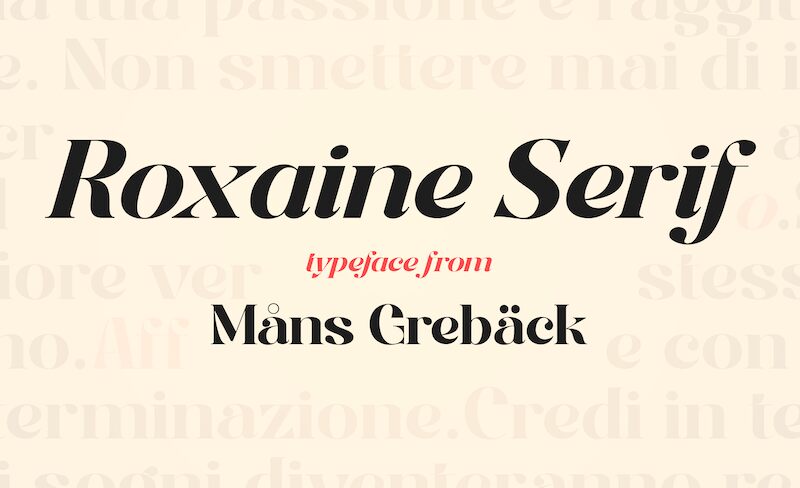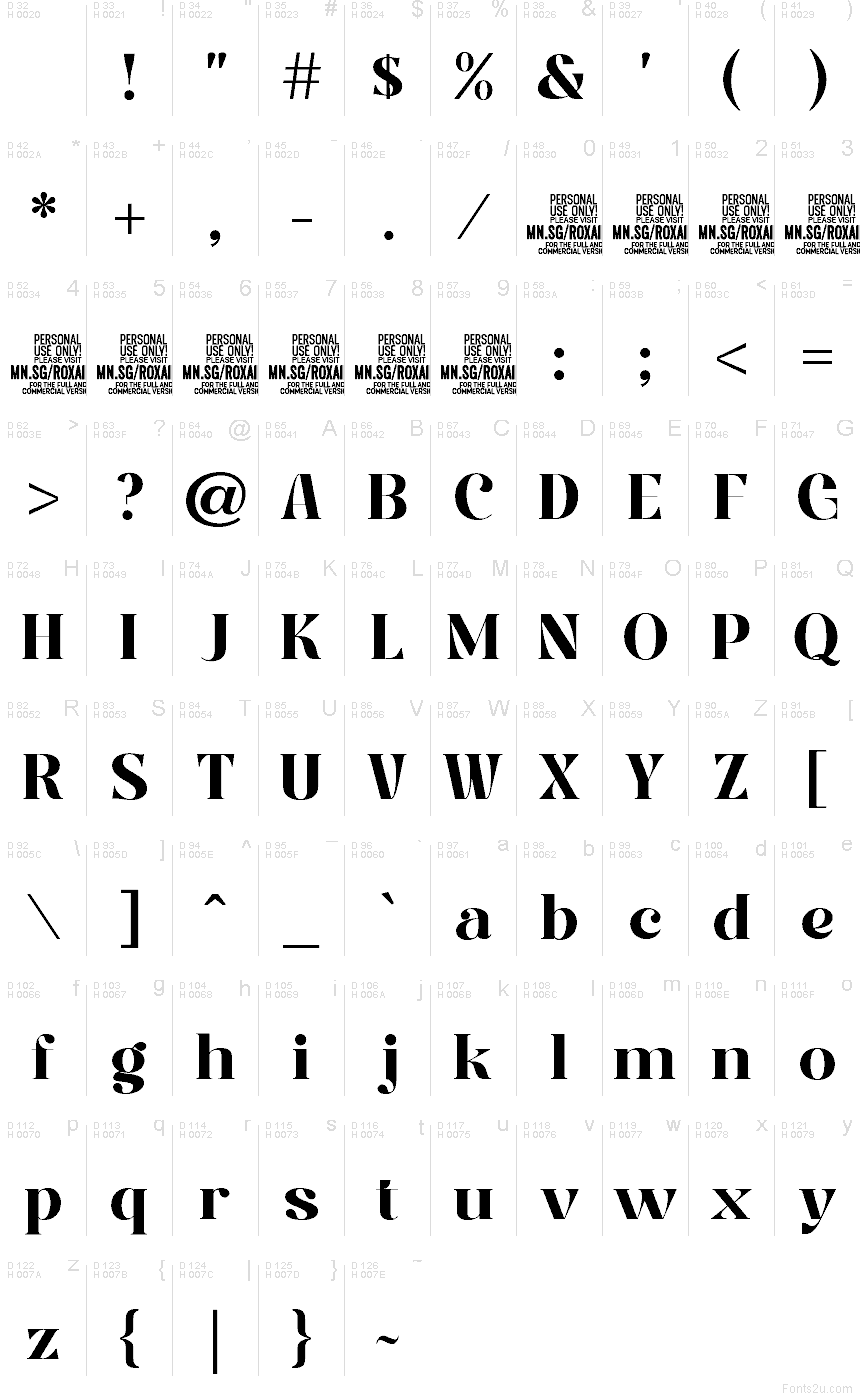
Roxaine Serif PERSONAL USE Regular
Roxaine Serif font by Mans Greback is a free serif typeface that hits that rare sweet spot between lush elegance and confident weight. Thick, inky strokes meet razor-sharp details, giving each word a sculpted, editorial feel that almost looks printed on fine paper. The letters flow with a smooth rhythm, so even at large sizes the text feels cohesive rather than shouty, making this serif both dramatic and surprisingly refined.
Using Roxaine Serif, your titles and wordmarks gain a couture-level polish that suits beauty branding, luxury packaging, magazine covers, fashion lookbooks, wedding stationery, and bold hero graphics. This free font shines when you give it space and scale, then support it with a clean sans serif for body copy to keep layouts balanced and readable.